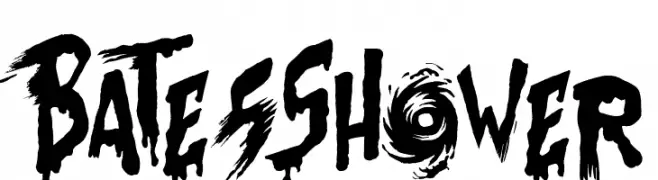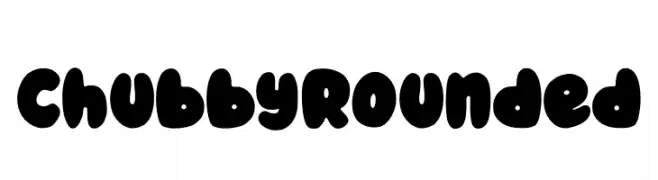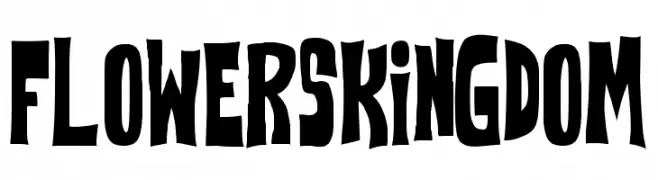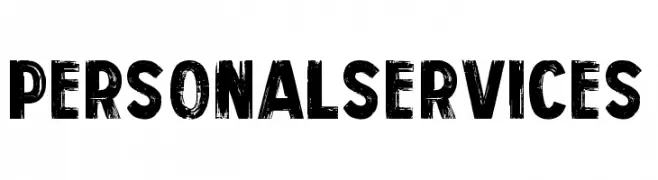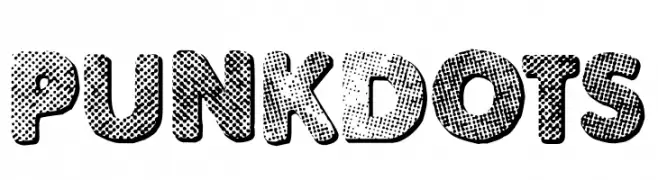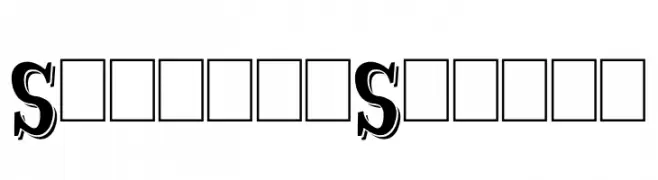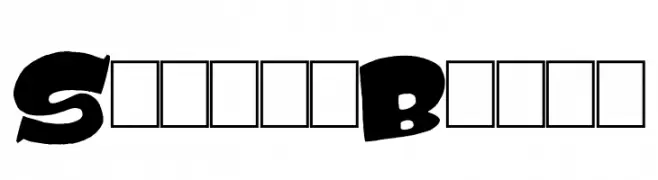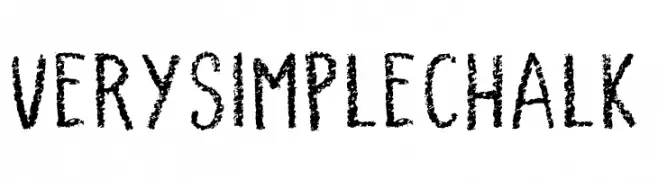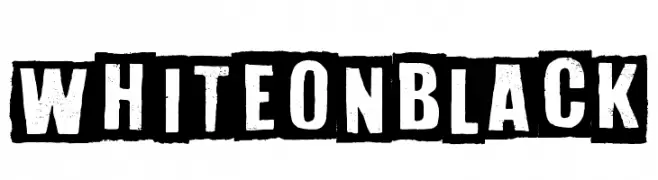
A bold, dotted font with a retro comic book style.
A bold, artistic font with a hand-drawn, playful style.
A bold, jagged font with a raw, brush-like style.
A bold, shadowed serif font with a dynamic, three-dimensional look.
A bold, distressed font with a vintage, industrial look.
A playful, bold font with rounded, chubby characters perfect for fun designs.
A bold, distressed font with a grunge texture and rugged appearance.
A bold, playful font with dynamic and energetic characters.
A bold, playful font with cartoon-like, exaggerated characters.
A playful, chalk-like font with a hand-drawn, textured appearance.